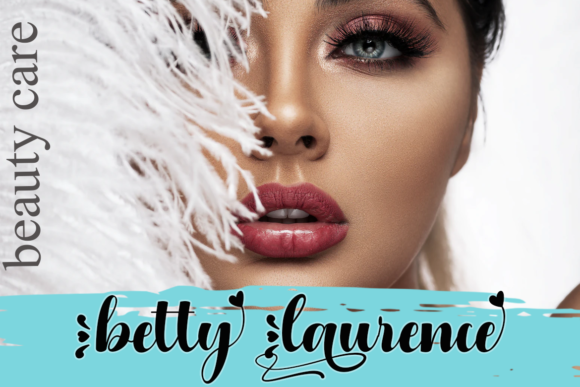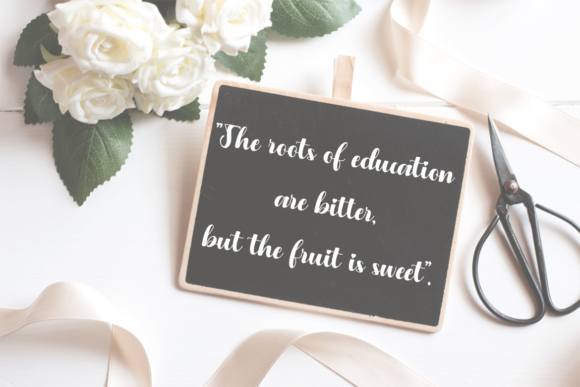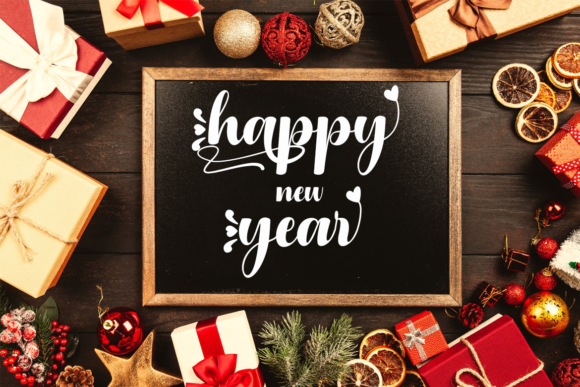
Introduction to Lavida Font
Remember the moment when you stumbled upon the perfect font for your creative project? The one that makes your design pop, and tells a story without saying a word? For designers, finding the right font can be a game-changer, and that’s exactly what the Lavida Font offers.
With its sweet, flowing, and bold handwritten style, Lavida Font adds a touch of romance and personality to any design. Whether it’s a wedding invitation, a thank you card, or a quote, this font brings a sense of warmth and elegance that’s hard to resist. And the best part? It’s available for free download, making it an invaluable resource for designers on a budget.
Key Features of Lavida Font
- High-quality, professional design suitable for various creative projects, including logos, branding, and typography.
- Lavida Font is designed with a modern and elegant aesthetic, perfect for adding a touch of sophistication to any creative project.
- With its clean and simple design, Lavida Font is highly versatile and can be used in a wide range of applications, from business cards to website headers.
Honest Review: Lavida Font
I recently came across the Lavida Font and was excited to give it a try for my current design project. As a designer, I’m always on the lookout for high-quality fonts that can elevate my creative work.
- ✨ High-quality design: The Lavida Font has a unique and elegant design that catches the eye.
- ⚠️ Limited font styles: The Lavida Font only comes in a few styles, which may not be suitable for complex design projects.
- ⚠️ Not ideal for large text: While the font looks great for small text, it may not be the best choice for large headings or titles.
Overall, I’m impressed with the Lavida Font’s design and versatility. While it may have some limitations, it’s a great addition to any designer’s toolbox, especially for those working on smaller design projects or looking for a free design resource.
Lavida Font is commonly used in creative projects, such as logos, brochures, and business cards. It’s also perfect for designing social media graphics, presentations, and reports. The font’s high-quality design makes it a popular choice among designers and non-designers alike.